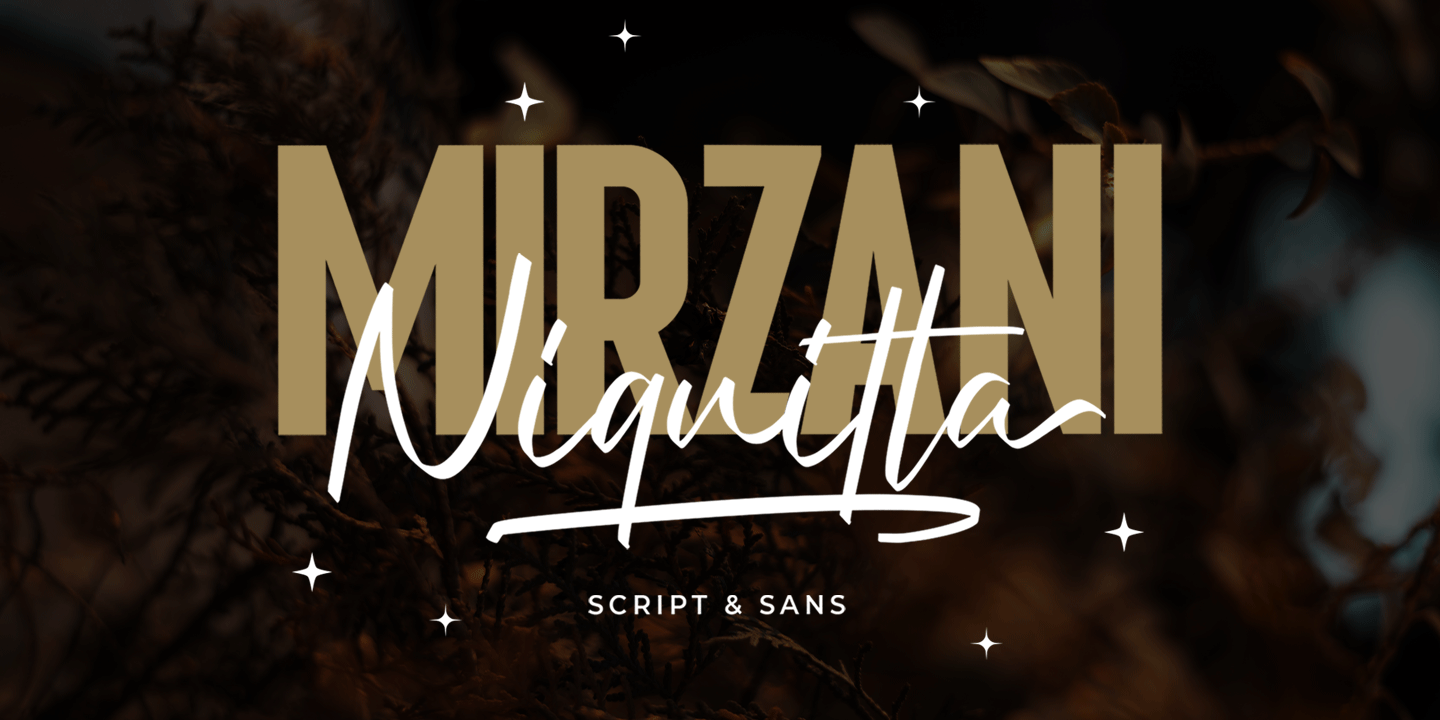
This glamorous typeface excels in various high-fashion applications including celebrity branding, luxury fashion magazines, red carpet event invitations, beauty influencer logos, entertainment industry materials, glamour photography portfolios, cosmetic campaign headlines, and exclusive nightlife promotions. The Niquitta Mirzani Font radiates star power with its confident letterforms that command attention like a celebrity walking the red carpet, bringing drama and sophistication to every design.
What makes this font truly exciting is its bold fusion of theatrical flair and refined elegance, creating characters that feel both dramatically expressive and luxuriously polished. The strikingly designed letters feature high contrast strokes, dramatic curves, and attention-grabbing proportions that make every word feel like a headline-worthy statement. Its distinctive personality combines Hollywood glamour with contemporary edge, creating typography that embodies the confidence of modern celebrity culture.
The Niquitta Mirzani Font family includes show-stopping variations: Regular, Bold, Black, Italic, and Display styles, plus alternate characters for added drama. Each family member maintains the signature glamorous character while providing flexibility for creating designs that range from elegantly sophisticated to boldly theatrical.